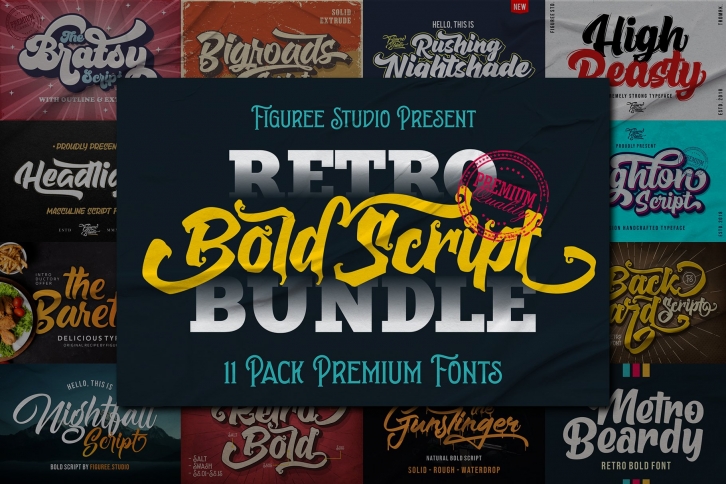
Retro Bold Script Bundle is a gorgeous font that was realeased on November 18, 2022. The font can be used in many style contexts and design environments. Perfect for invitations, magazines, websites, logos, and more! It was designed by Figuree Studio and the file size is 1.67 MB. Thanks for checking out this font!